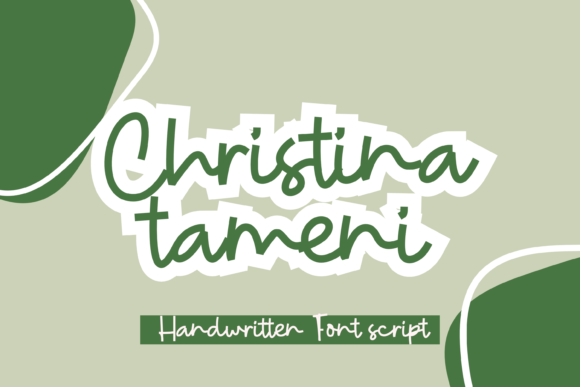
Meet the Font that Brings Joy to Your Designs
You know that feeling when you stumble upon the perfect font for a project, and suddenly everything clicks? It’s like the words come alive, and your design takes on a whole new level of personality. For me, that font is Christina Tameni Font – a chic, quirky script that never fails to put a smile on my face.
With its stylish alternates and ligatures, Christina Tameni Font is the perfect match for any project that needs a dash of whimsy and friendliness. Whether you’re designing a logo, a brochure, or a social media campaign, this font is sure to bring a touch of joy to your work. And let’s be honest, who doesn’t want their designs to make people smile?
Christina Tameni Font Key Features
- Font Family: Christina Tameni Font is a unique, handwritten script font designed by an unknown designer. The font family includes various weights and styles to cater to different design needs.
- Unique Characteristics: The Christina Tameni Font features a distinctive, hand-written style with varying line widths, giving it a personal and creative touch. The font is ideal for use in branding, invitations, and other design projects where a unique, handwritten feel is desired.
Review of Christina Tameni Font
As a designer, I’ve had the opportunity to work with Christina Tameni Font, and I must say it’s a unique and intriguing choice. Here are my thoughts on what works well and what doesn’t.
- The font’s elegant and sophisticated feel makes it perfect for high-end branding and design projects.
- The distinctive letterforms and flowing connections between letters add a touch of sophistication and refinement.
- The font’s versatility allows it to be used in a variety of contexts, from titles to body text.
- The font may be difficult to read at small sizes due to its intricate details.
- The font’s unique letterforms may not be suitable for all audiences, particularly those who prefer more straightforward typography.
Overall, Christina Tameni Font is a beautiful and sophisticated choice for designers who want to add a touch of elegance to their projects. However, it’s essential to consider the potential limitations and ensure that the font is suitable for the intended audience and use case.
Getting the Most Out of Christina Tameni Font
To get the most out of Christina Tameni Font, use it for:
1. Elegant and sophisticated designs.
2. Luxury branding and packaging.
3. High-end fashion and beauty campaigns.
Alternatives to Christina Tameni Font
The Great Vibes Font is a modern, elegant script font perfect for creating a sense of sophistication and refinement. It’s ideal for use in wedding invitations, formal event invitations, and high-end branding.
Compared to Christina Tameni Font, Great Vibes Font has a more refined and polished feel, making it suitable for more formal and upscale designs.
The Pacifico Font is a beautiful, elegant script font with a relaxed and casual feel. It’s perfect for use in beach-themed designs, travel brochures, and other projects that require a laid-back and summery vibe.
What is the recommended font size for optimal readability with the Christina Tameni Font?
The recommended font size for optimal readability with the Christina Tameni Font is between 12pt and 24pt. However, the ideal font size will depend on the specific design requirements, such as the intended audience and viewing distance. Experiment with different font sizes to find the best balance between readability and visual impact.